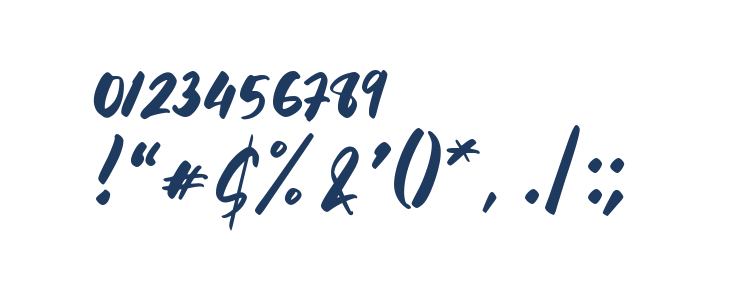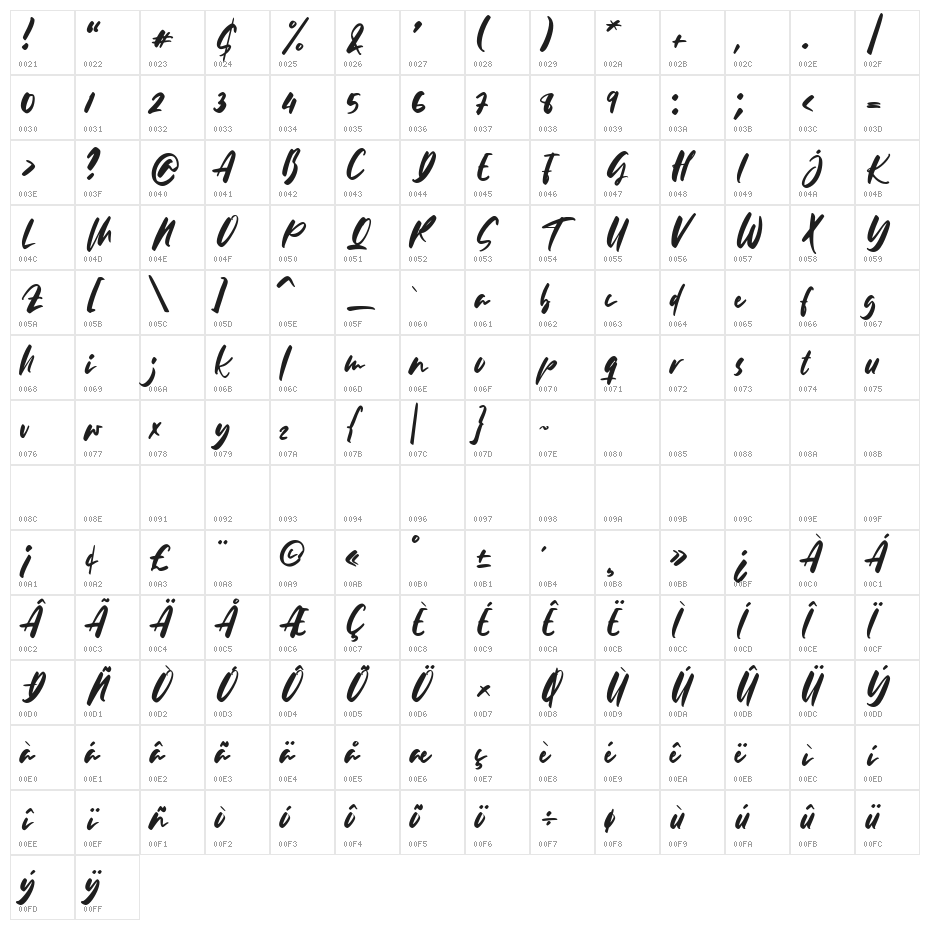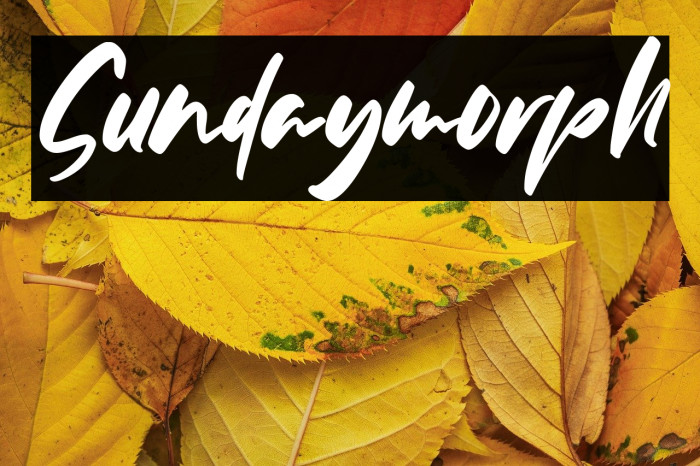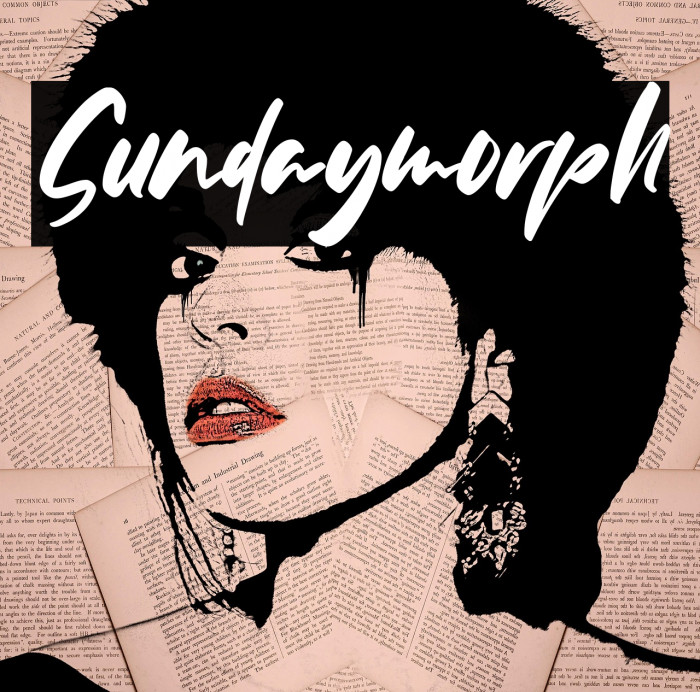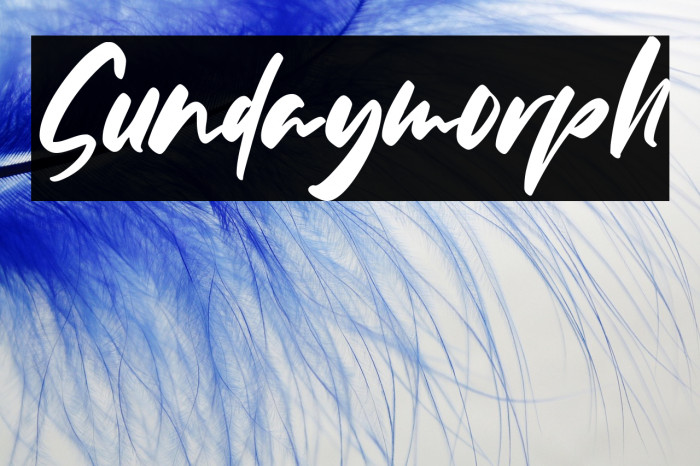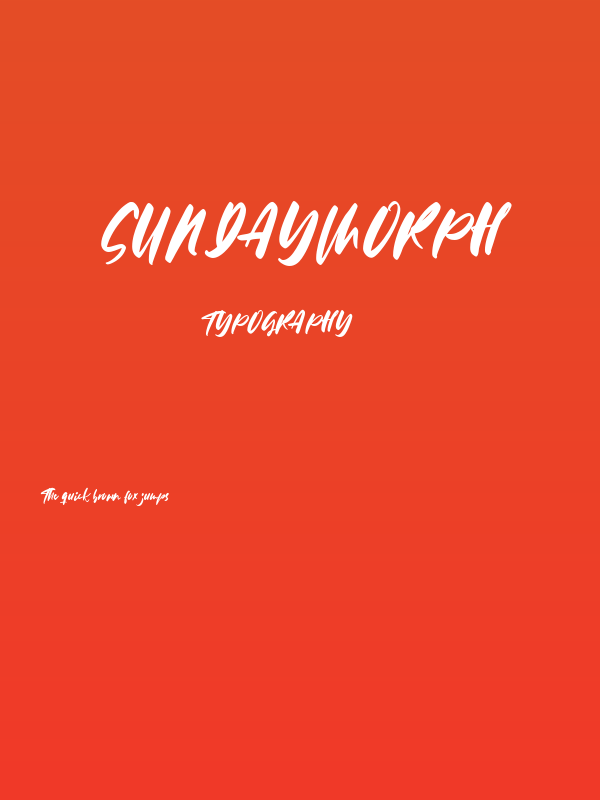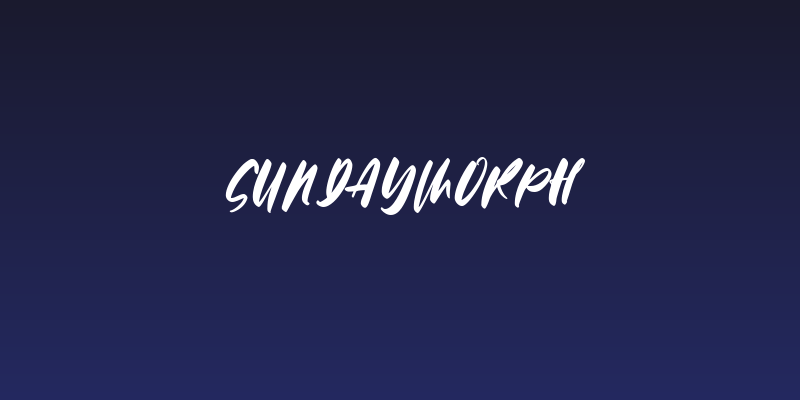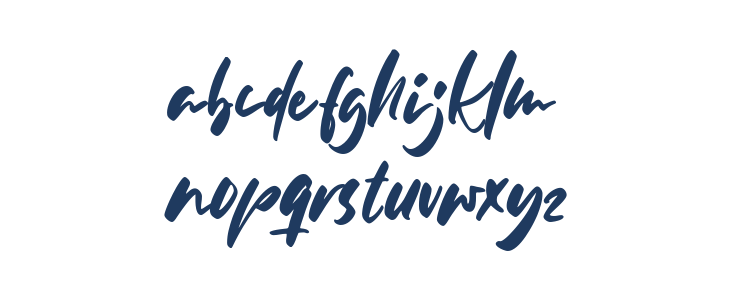
Sundaymorph Font
Sundaymorph Description
This font exhibits a bold and expressive handwritten style, characterized by its fluid and dynamic strokes. The letters are crafted with a sense of movement and energy, creating an informal yet artistic appearance. The uppercase and lowercase letters maintain a consistent style, with some letters featuring unique flourishes that add to the overall aesthetic. Numbers and special characters are designed to match the lively and bold nature of the alphabet, making the font versatile for various creative applications.
| Use Case | Logos, Headlines, Posters |
| Proposed Projects | Ideal for branding projects, creative posters, invitations, and social media graphics where a personal and artistic touch is desired. |